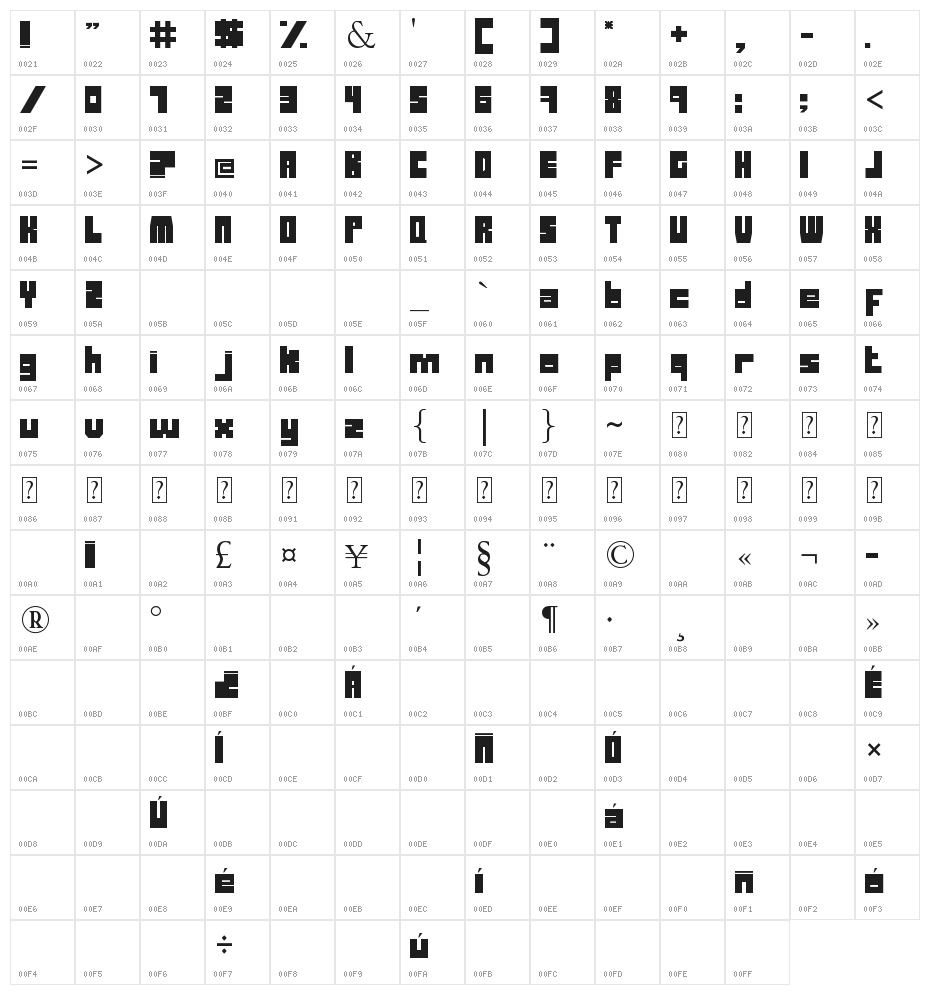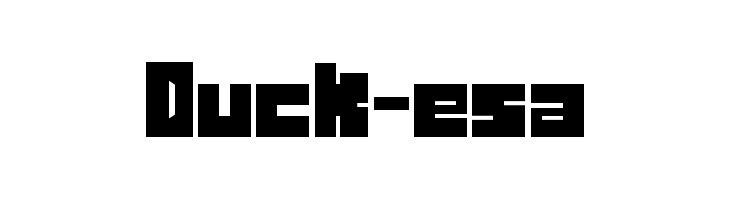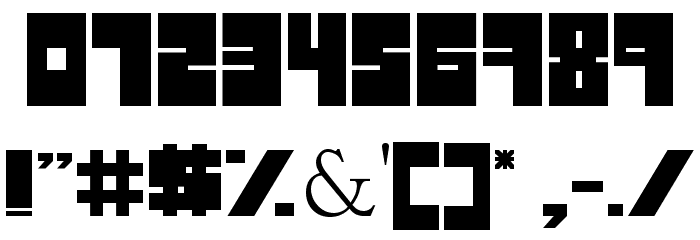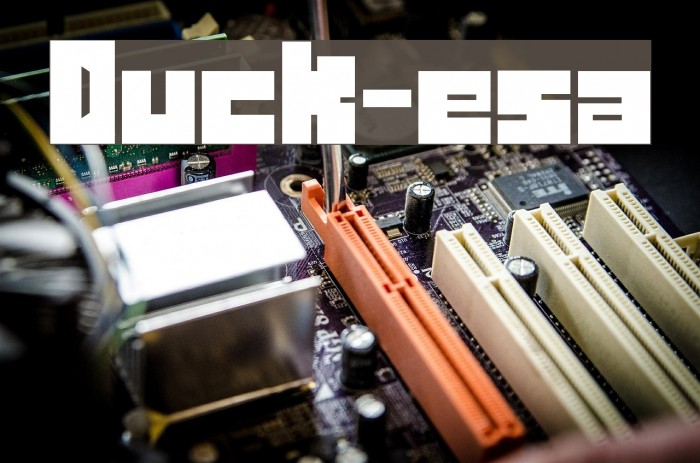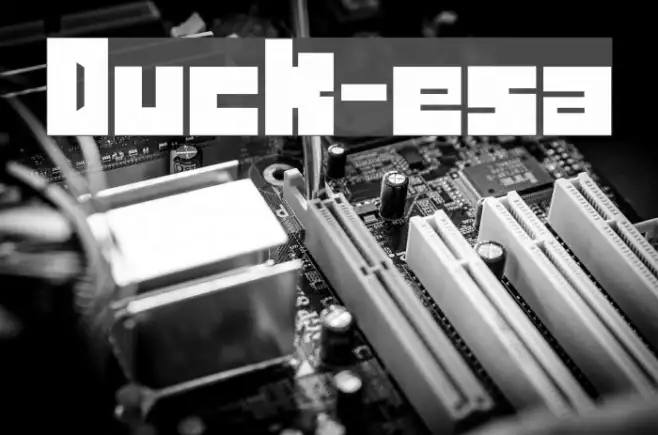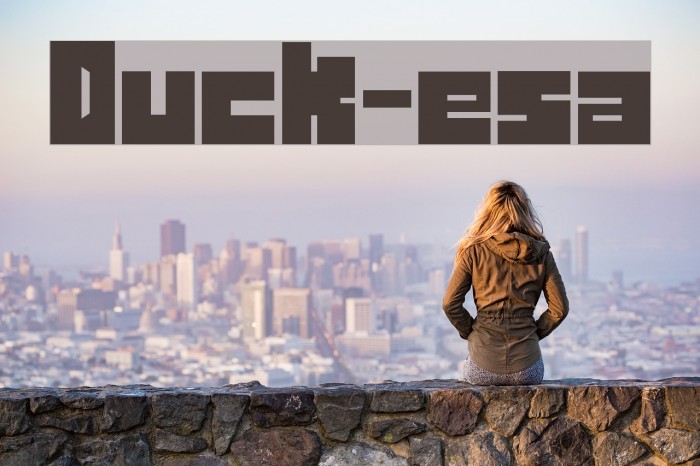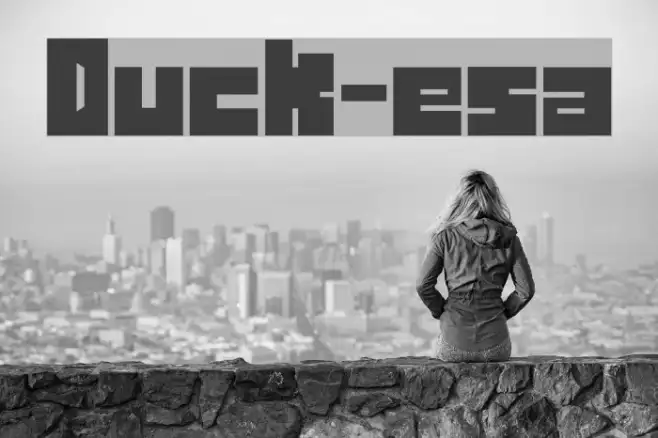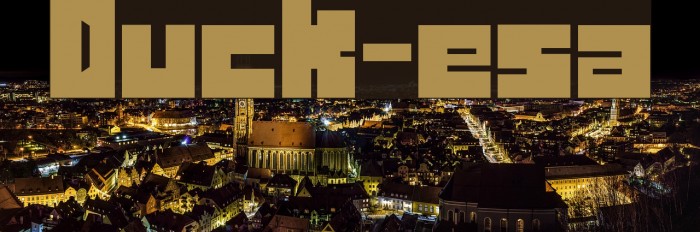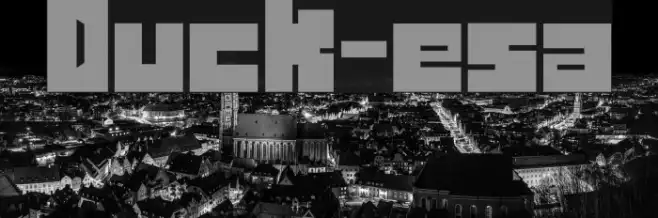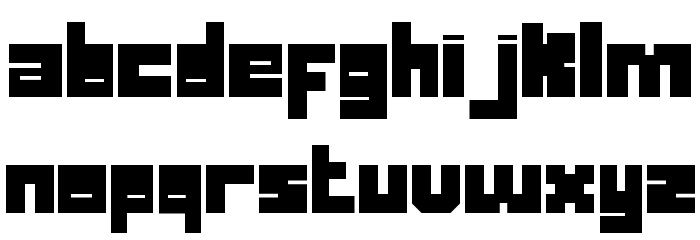
Duck-esa Font
Duck-esa Description
This font features a bold, geometric design with a strong, blocky appearance. The characters are constructed with sharp angles and straight lines, creating a modern and assertive look. The uppercase and lowercase letters maintain a consistent width, giving the font a monospaced feel, although it is not strictly monospaced. The numbers and special characters follow the same design principles, ensuring uniformity across all glyphs. The font's high contrast and solid structure make it ideal for impactful headlines and attention-grabbing designs. Its unique style is both futuristic and retro, reminiscent of digital or arcade aesthetics.
| Proposed Projects | Ideal for video game titles, tech branding, posters, and digital media. |